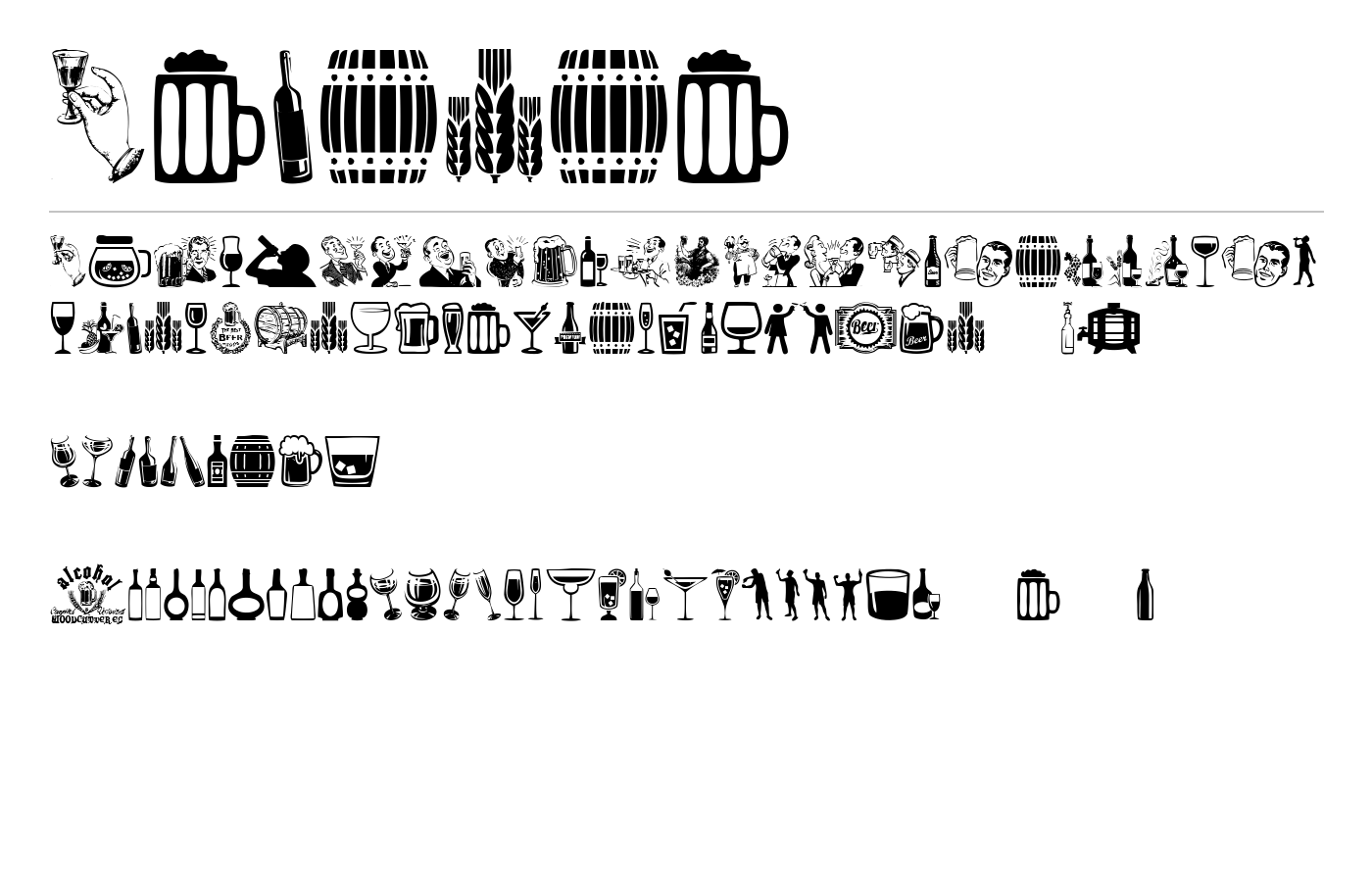
Alcohol Font is a decorative dingbat typeface that features detailed illustrations of various alcoholic beverages, related objects, and people enjoying drinks. Its bold, black silhouettes with playful and vintage-inspired elements make it perfect for creating eye-catching designs with a fun, lively atmosphere. This font works well for bar menus, party invitations, beverage branding, and promotional materials where a spirited, social vibe is desired.
Alcohol Font